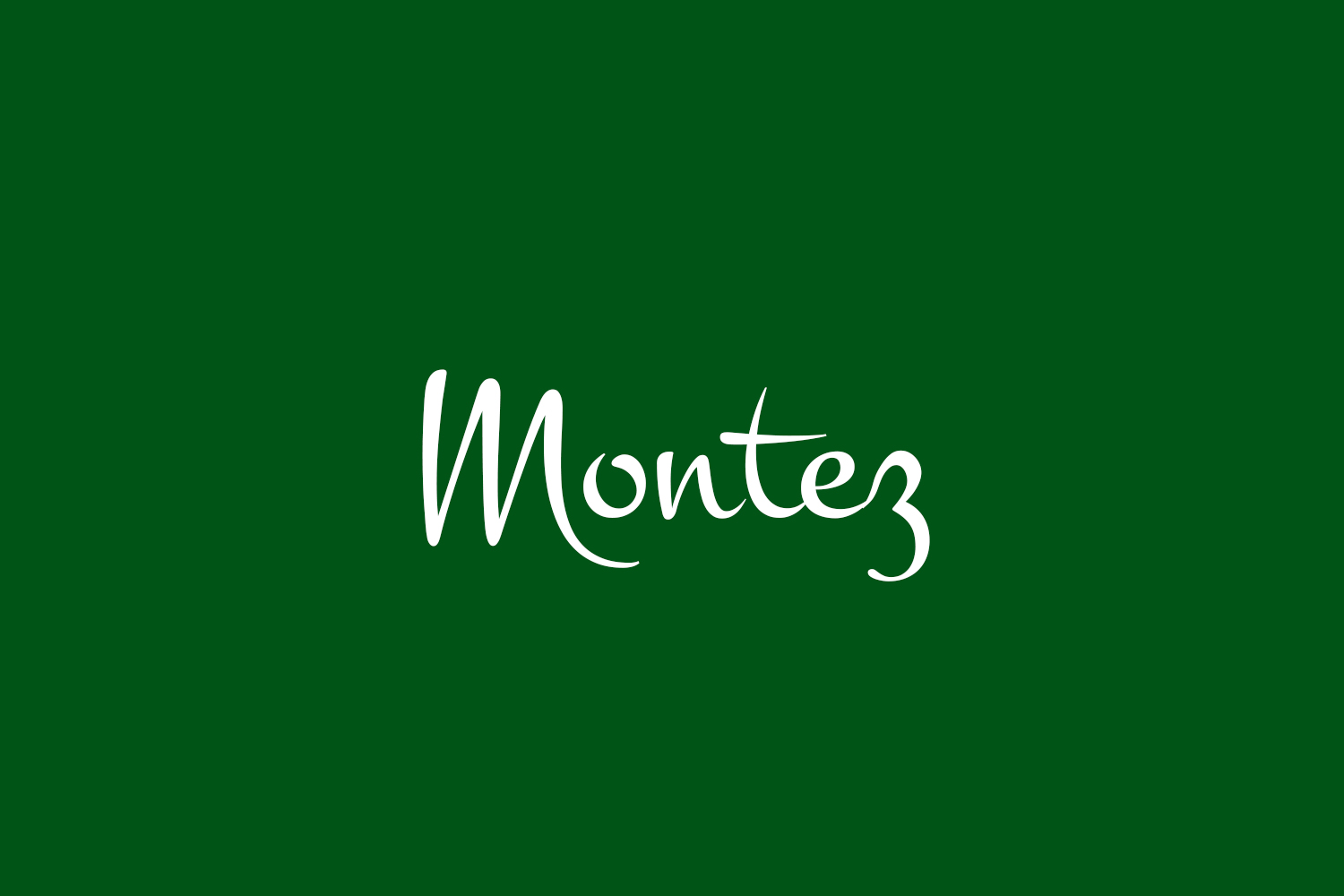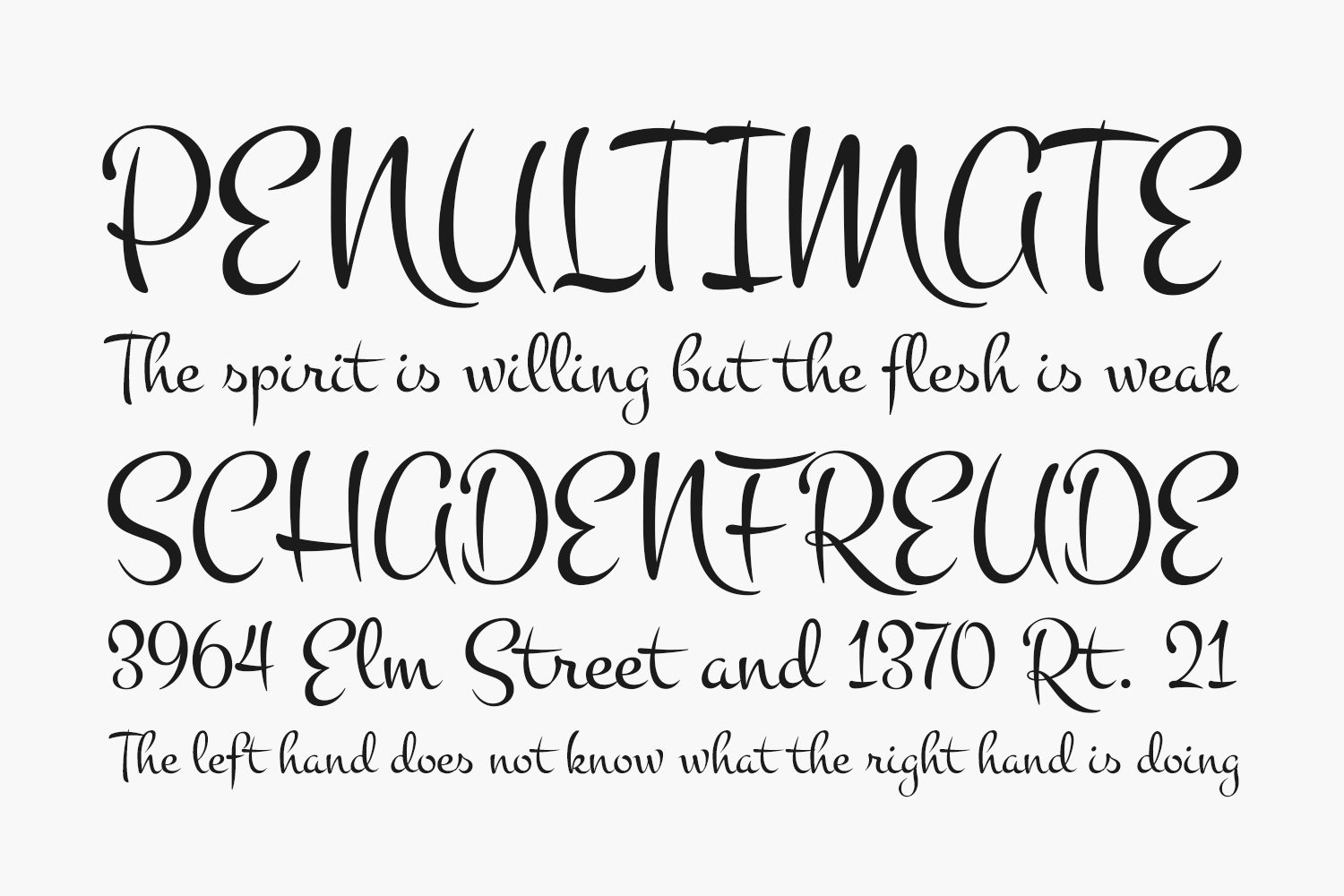
Montez Free Font is drawn inspiration from 1960s beauty product ads. It is developed by Steppdot and is distributed under Apache License.
Designed by Astigmatic